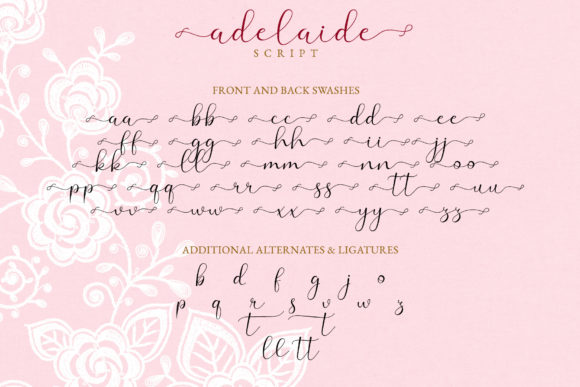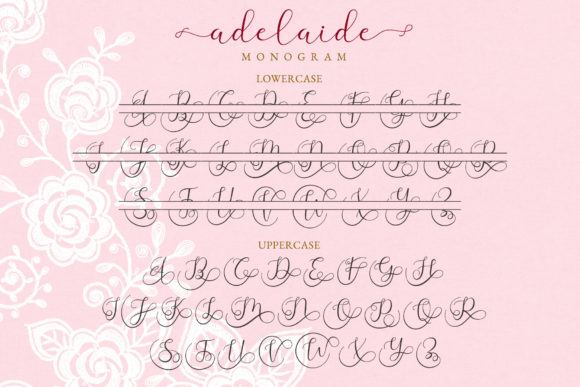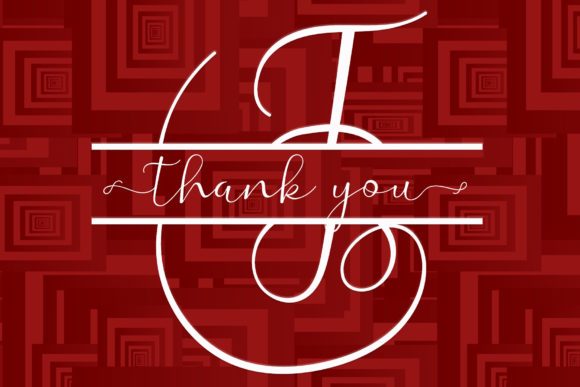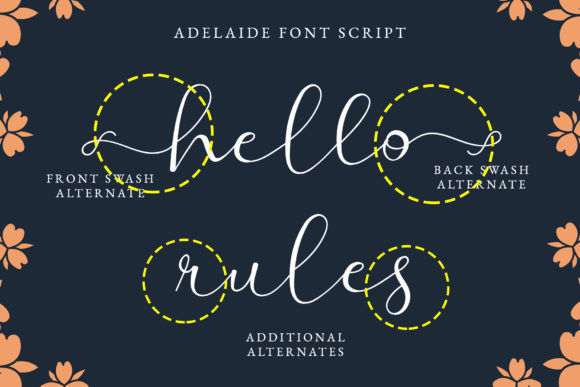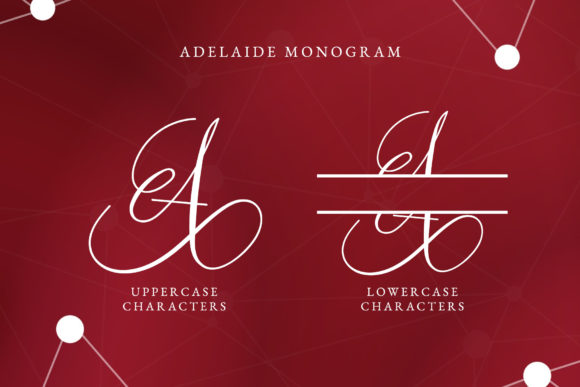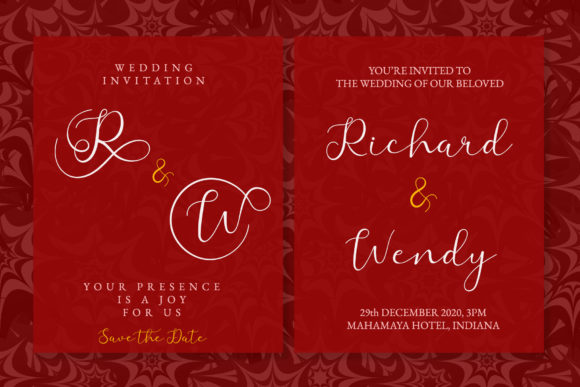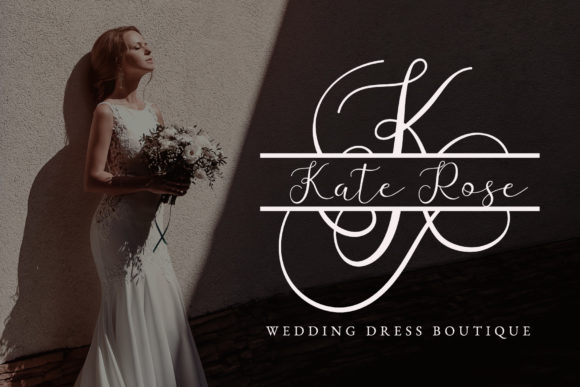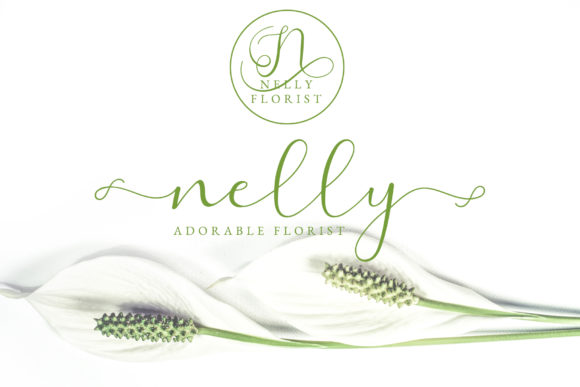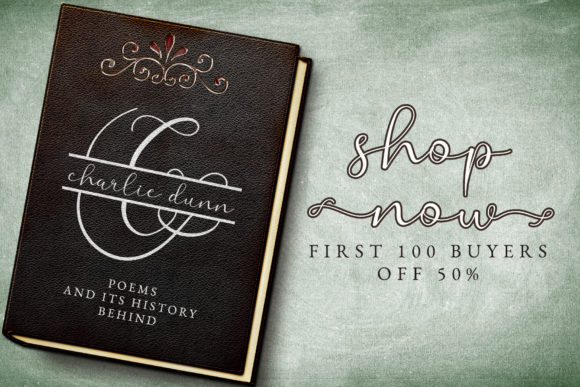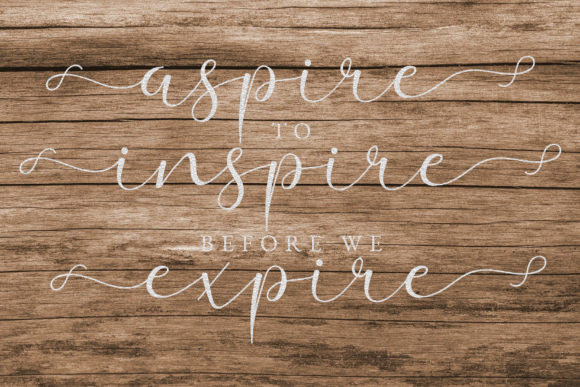
Adelaide Font
About Adelaide Font
Adelaide is a handwritten script font with a touch of sweetness and elegance. Use this gorgeous and unique font to bring any DIY project to life!